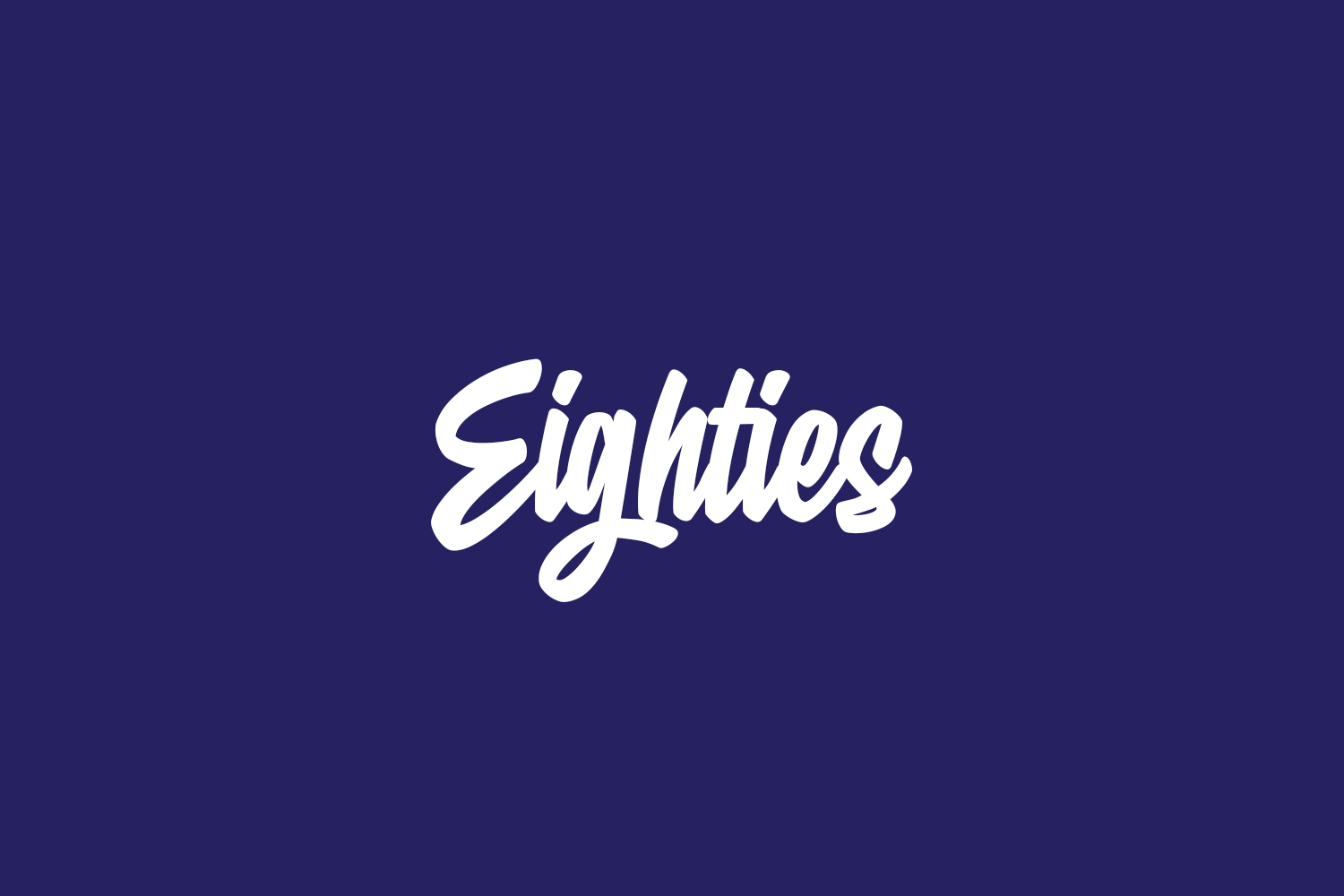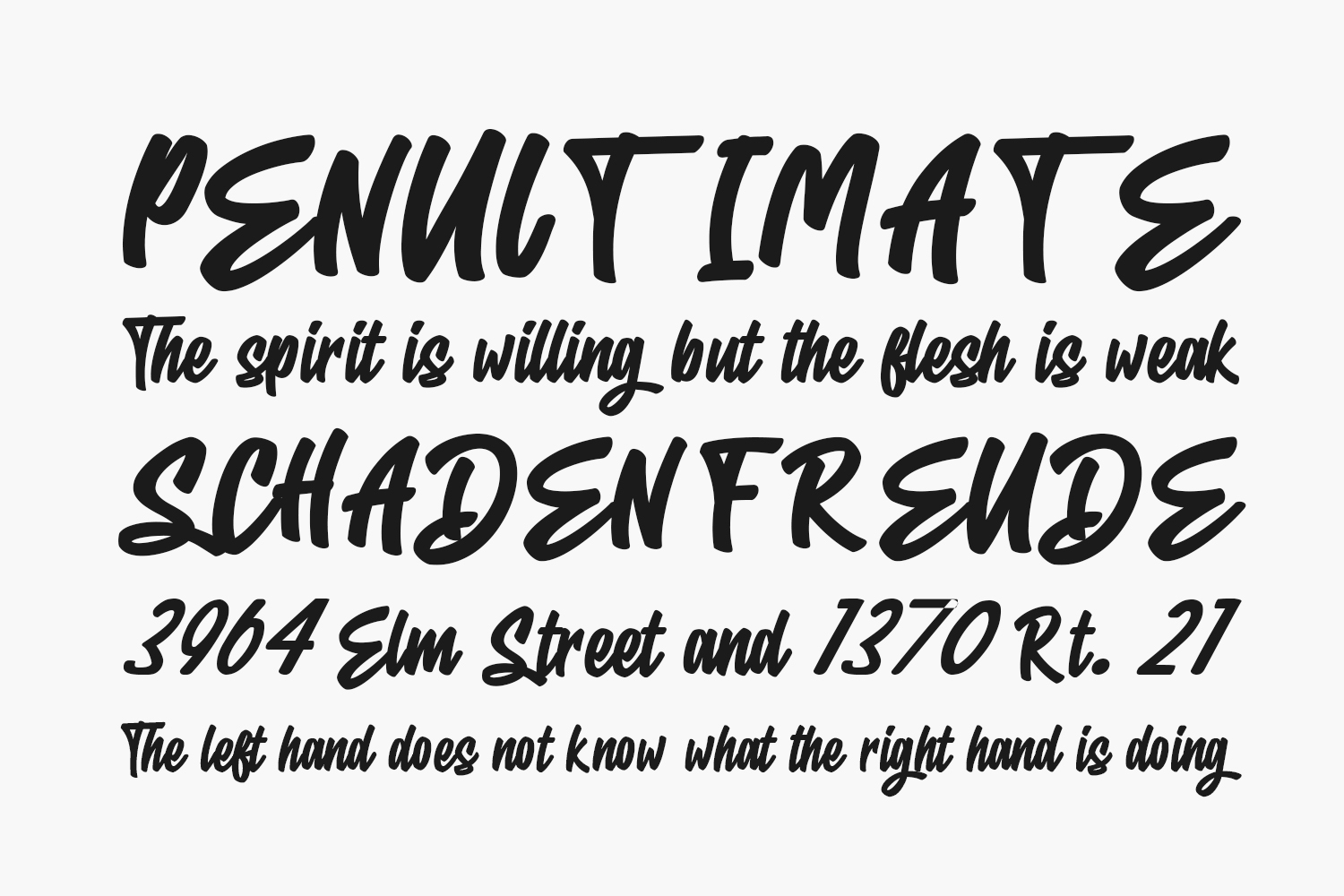
Eighties Free Font is a font display is made by hand, inspired by classic posters. Comes with uppercase, lowercase, numerals, punctuation, and so many variations on each character, including OpenType alternates, common ligatures, and additional swashes to let you customize your designs. Perfect to use for Logotype, Letterhead, Poster, Apparel Design, label, etc. Eighties Free Font is a demo and free for personal use only. Please purchase the full version for commercial use.